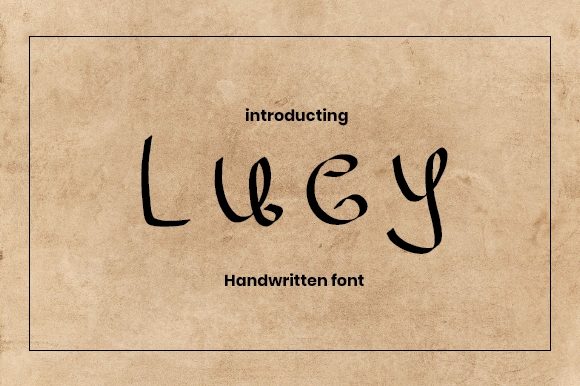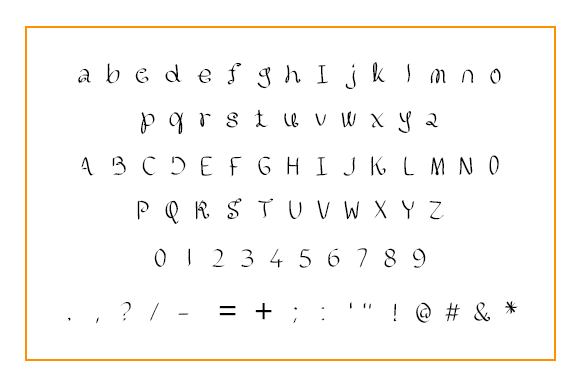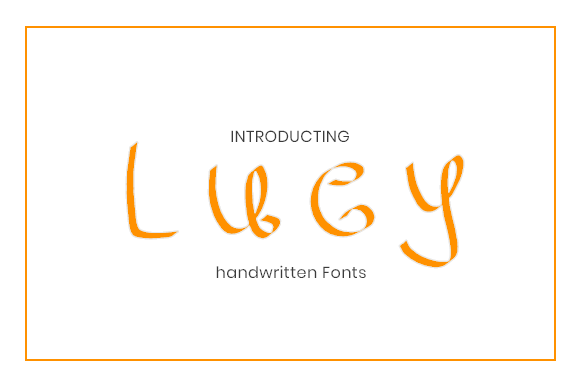
Lucy Font
About Lucy Font
Lucy is a cheerful handwritten font, carefully handcrafted to become a true favorite. Its casual charm makes it appear wonderfully down-to-earth, readable and, ultimately, incredibly versatile. Use it to add that a special touch to any design idea you can think of!